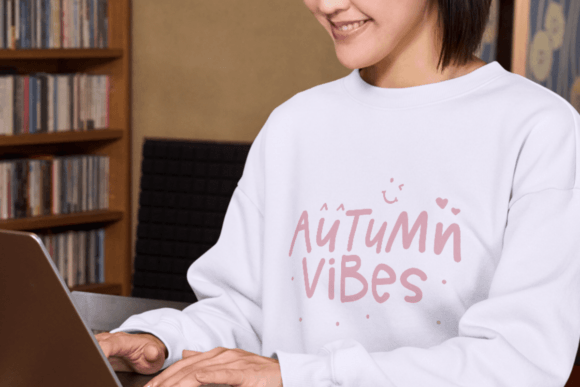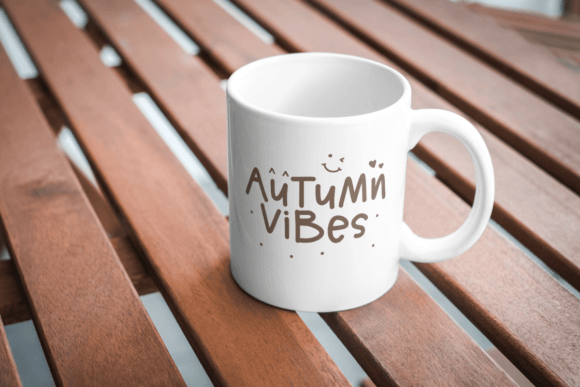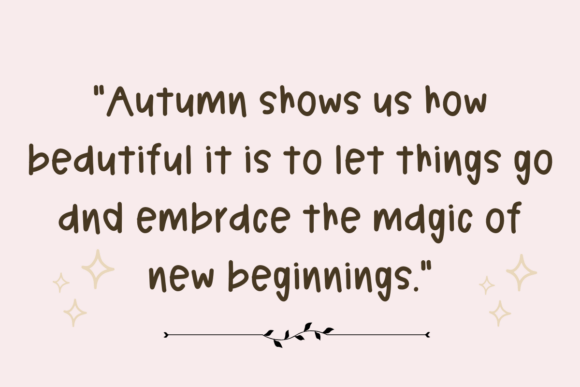
Introducing Autumn Whispers Font: The Perfect Addition to Your Design Collection
As the leaves change colors and the air grows crisper, designers and crafters alike are on the lookout for fonts that capture the essence of the autumn season. If you’re searching for a modern, youthful, and trendy font to elevate your fall-themed designs, look no further than Autumn Whispers. This beautiful handwritten font is perfect for adding a stylish and vibrant touch to any project, from social media posts to creative crafts.
The Characteristics of Autumn Whispers Font
Autumn Whispers is a modern handwritten font that exudes a fresh, youthful vibe. Its sleek, smooth lines and playful curves bring a contemporary edge to any design, making it perfect for trendy designs, social media posts, and creative projects with a fun, teenage style. The font’s clean and elegant appearance ensures that it remains legible, even at smaller sizes, making it versatile for a wide range of applications.
Why Choose Autumn Whispers Font?
There are many reasons why Autumn Whispers font stands out from the crowd. Here are just a few:
- Modern and Trendy: Autumn Whispers is the perfect choice for designers who want to create modern, trendy designs that appeal to a younger audience.
- Versatile: The font’s clean and elegant appearance makes it suitable for a wide range of applications, from social media posts to creative crafts.
- Easy to Read: The font’s smooth lines and clear letterforms ensure that it remains legible, even at smaller sizes.
- Fall-themed: The font’s warm and inviting feel makes it perfect for fall-themed designs, from harvest festivals to Thanksgiving decorations.
Using Autumn Whispers Font in Your Designs
Autumn Whispers font is perfect for a wide range of design projects, including:
- Social Media Posts: Add a stylish and vibrant touch to your social media posts with Autumn Whispers font.
- Blog Posts: Use Autumn Whispers font to create engaging and readable blog posts that capture the essence of the autumn season.
- Creative Crafts: From DIY tutorials to handmade crafts, Autumn Whispers font is the perfect choice for adding a personal touch to your creations.
- Fall-themed Designs: Use Autumn Whispers font to create stunning fall-themed designs, from harvest festivals to Thanksgiving decorations.
Tips for Getting the Most Out of Autumn Whispers Font
Here are a few tips for getting the most out of Autumn Whispers font:
- Experiment with Colors: Autumn Whispers font looks great in a range of colors, from warm autumnal hues to bright and bold colors.
- Play with Sizes: The font’s clean and elegant appearance ensures that it remains legible, even at smaller sizes.
- Combine with Other Fonts: Autumn Whispers font pairs well with a range of other fonts, from modern sans-serifs to elegant script fonts.
Autumn Whispers font is a beautiful and versatile font that’s perfect for designers and crafters alike. Its modern, youthful vibe and sleek, smooth lines make it ideal for trendy designs, social media posts, and creative projects with a fun, teenage style. Whether you’re creating fall-themed designs or just want to add a stylish and vibrant touch to your projects, Autumn Whispers font is the perfect choice.